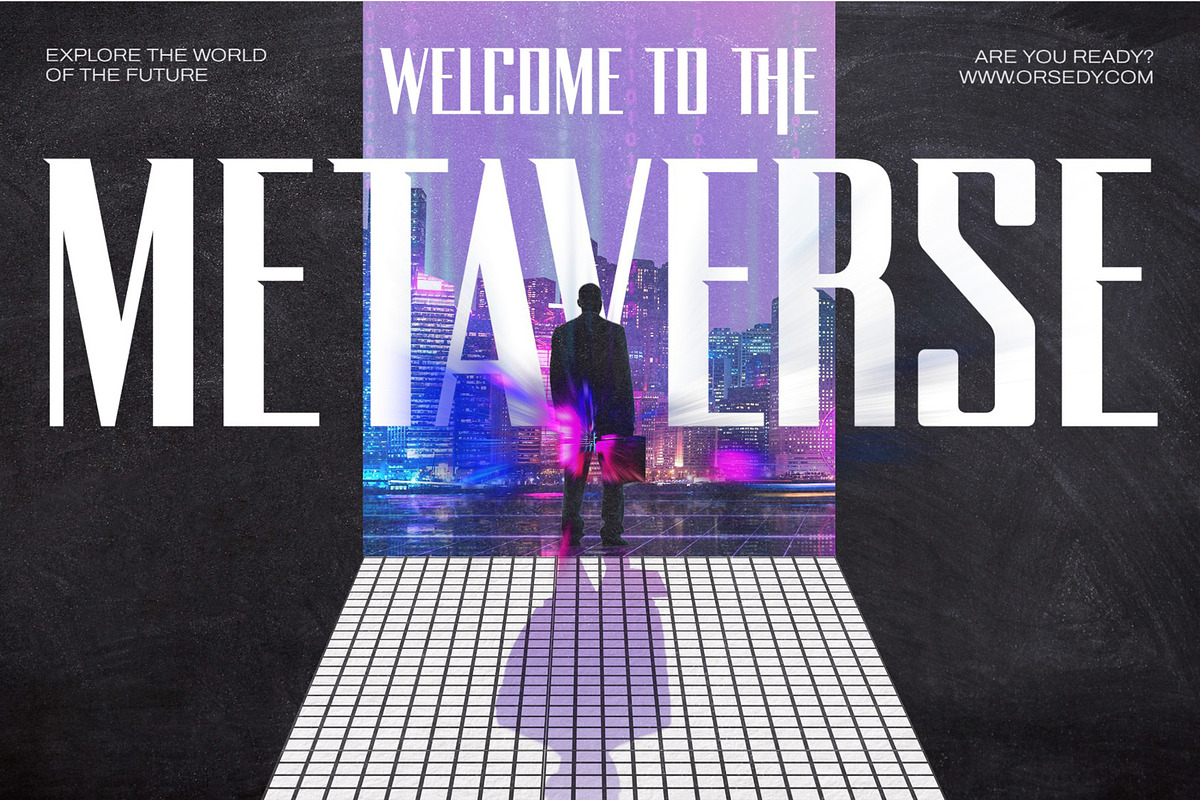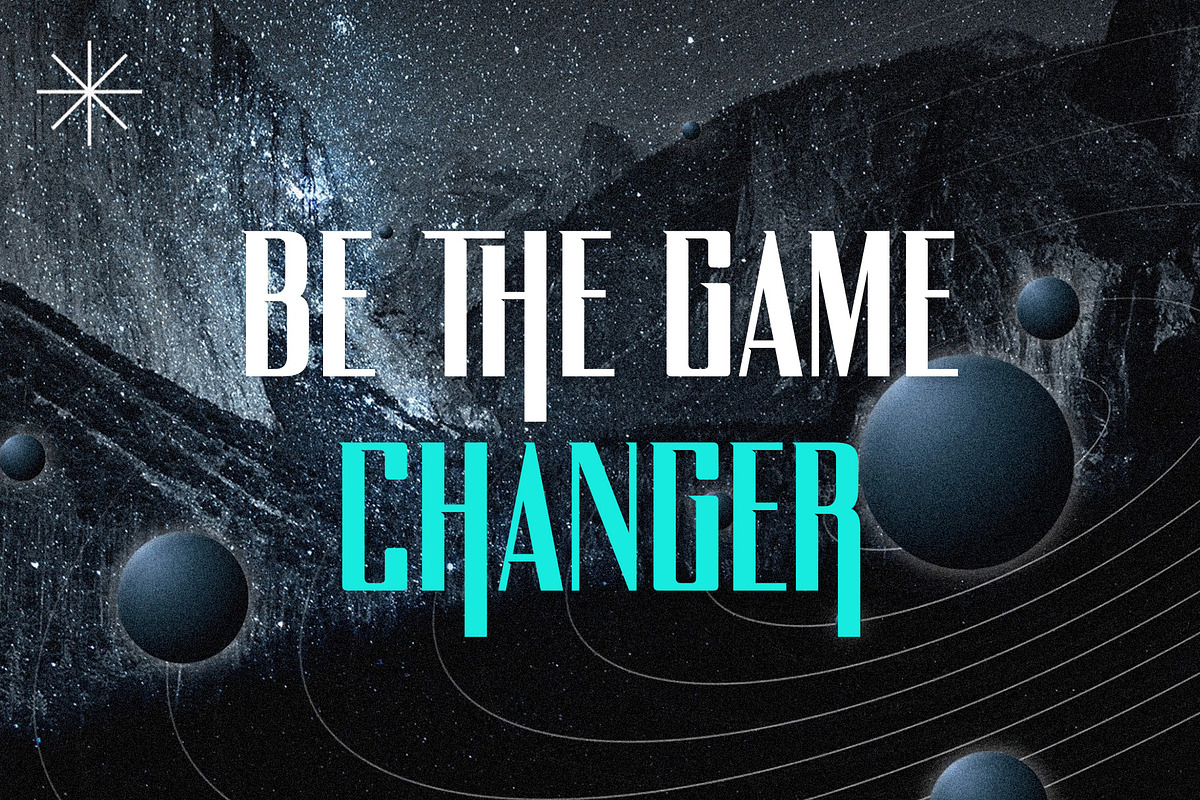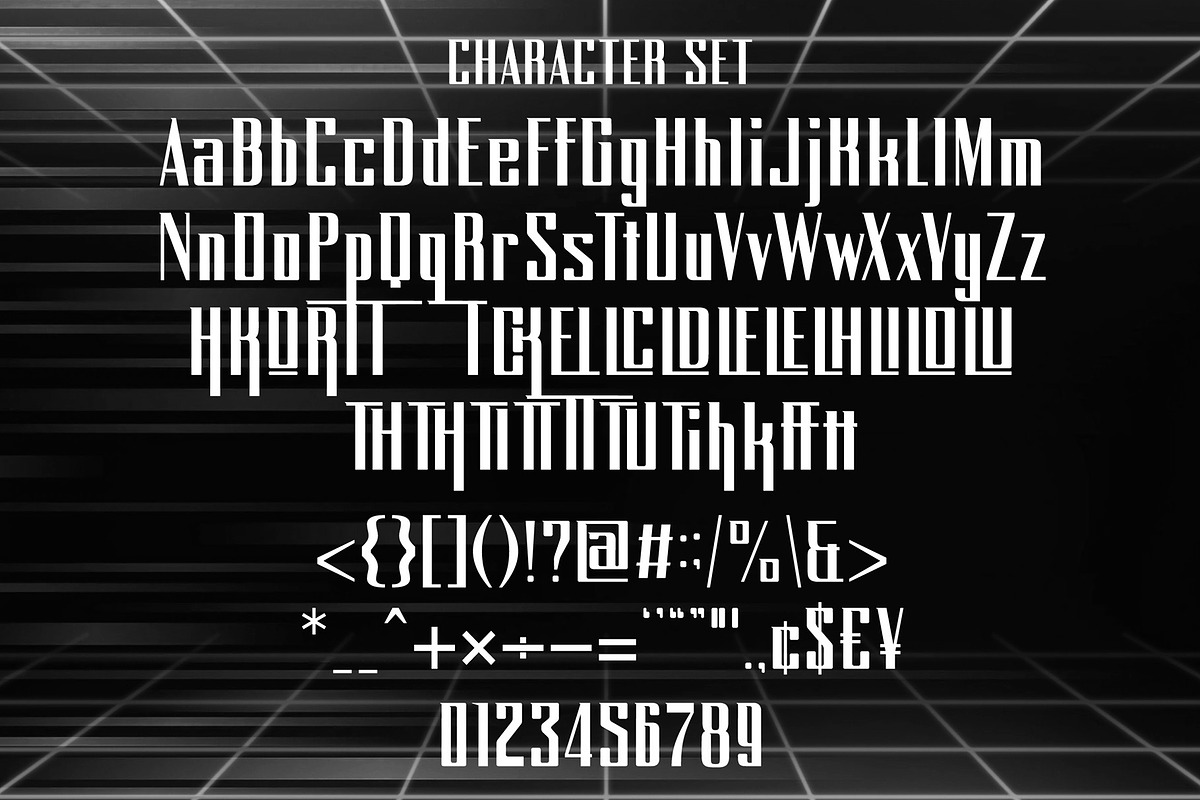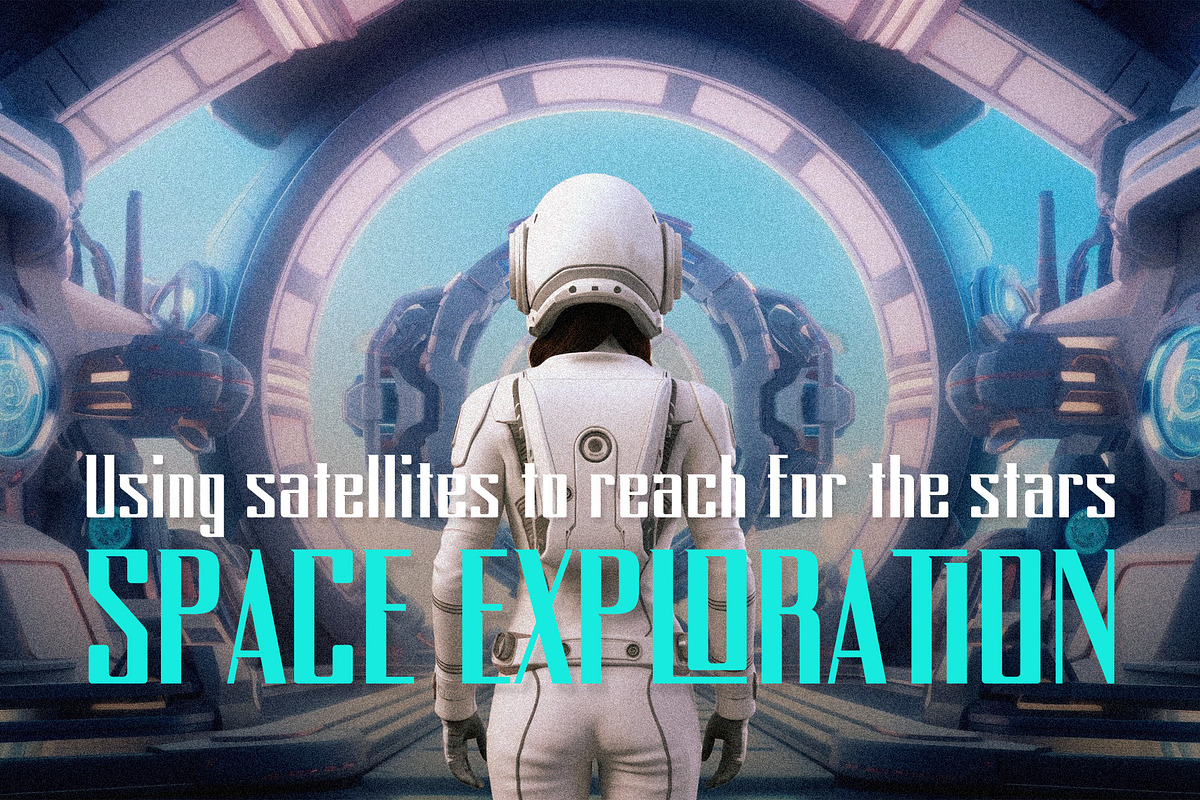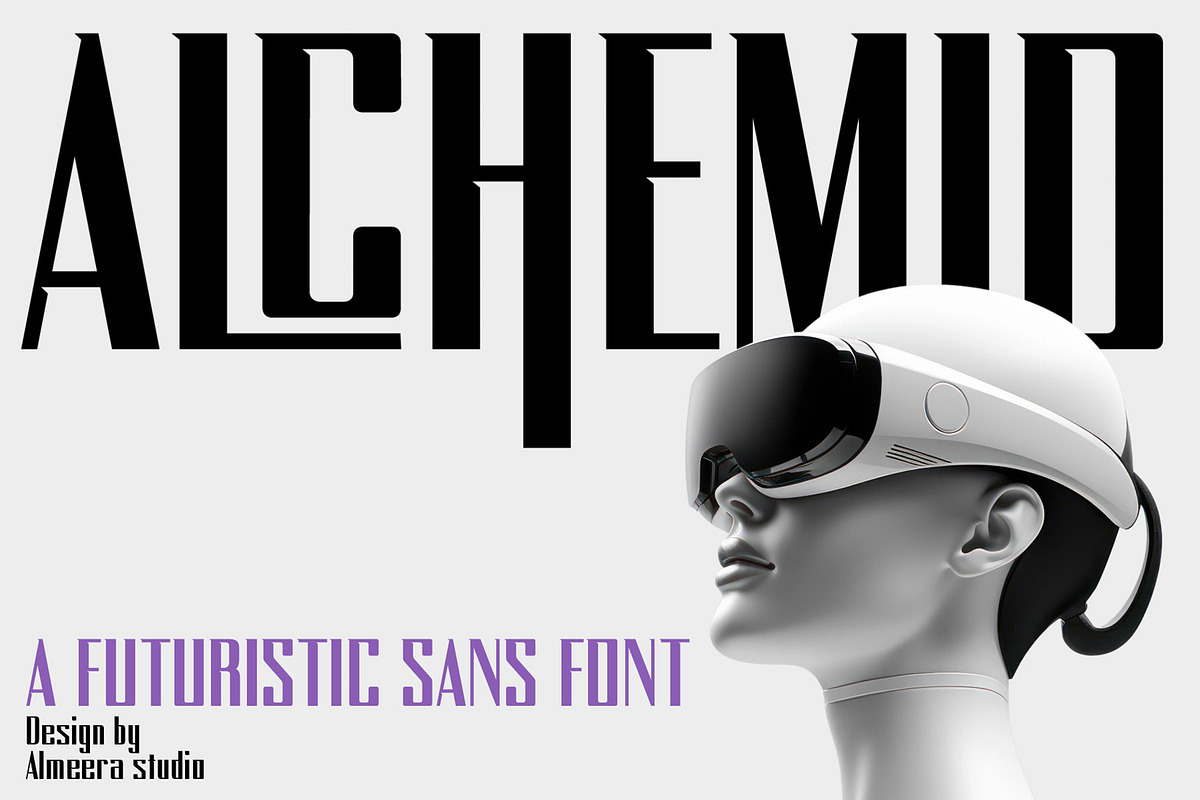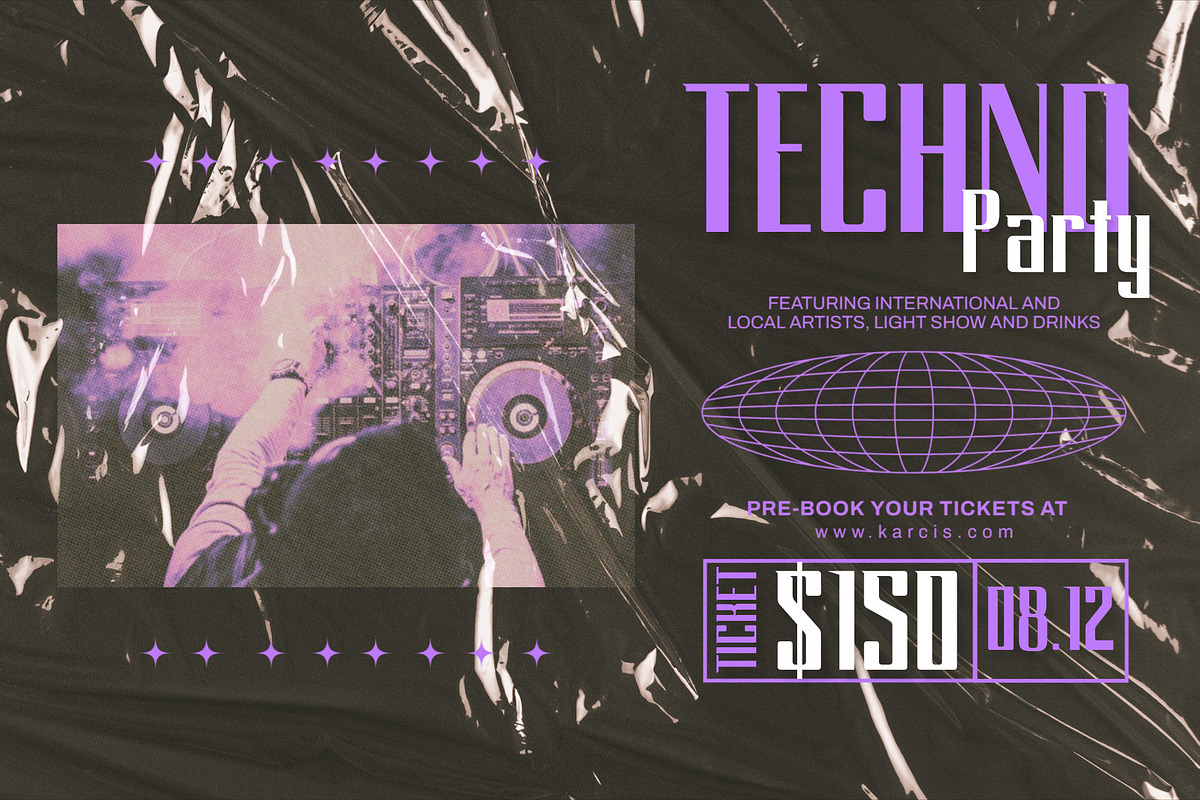
Alchemio - Futuristic Sans
Introducing Alchemio - Futuristic sans font. Alchemio is a display, minimalis & futuristic sans font, This type of font is very suitable for your various needs such as branding projects, logos, social media posts, advertisements, labels, product packaging, photography, wedding designs, watermarks, invitation product designs, stationery, and any project.